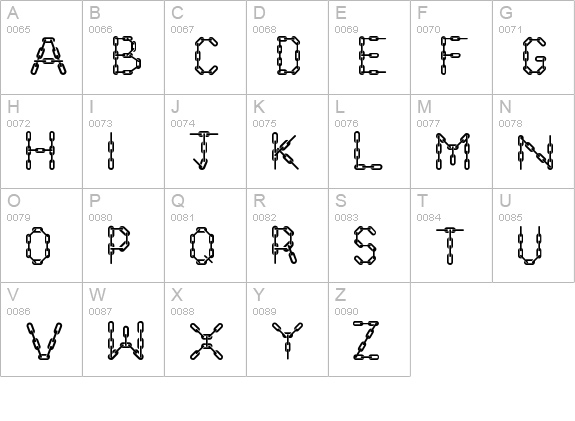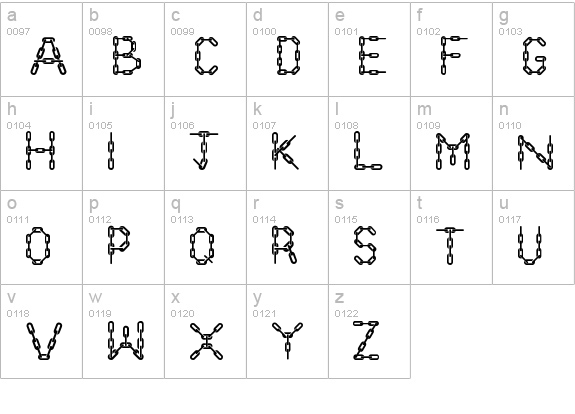
Chain Letters Font Details
Chain Letters font is a beautifully crafted typeface that exudes elegance and sophistication. Its unique design features intricate loops and interlocking letters that create a mesmerizing visual effect. The font is perfect for adding a touch of charm and style to any project, whether it be invitations, branding, or editorial design. What sets Chain Letters font apart is its versatility and timeless appeal. It can be used for both formal and informal purposes, making it a must-have for any designer's toolkit. The font's flowing lines and graceful curves give it a sense of movement and fluidity, making it a dynamic choice for any design project. Best of all, Chain Letters font is available for free download at FontsMarket.com. This means that you can access this stunning typeface without any cost, making it an excellent choice for budget-conscious designers and enthusiasts alike. Don't miss out on the opportunity to elevate your designs with the elegant and stylish Chain Letters font. Download it today and let your creativity soar!